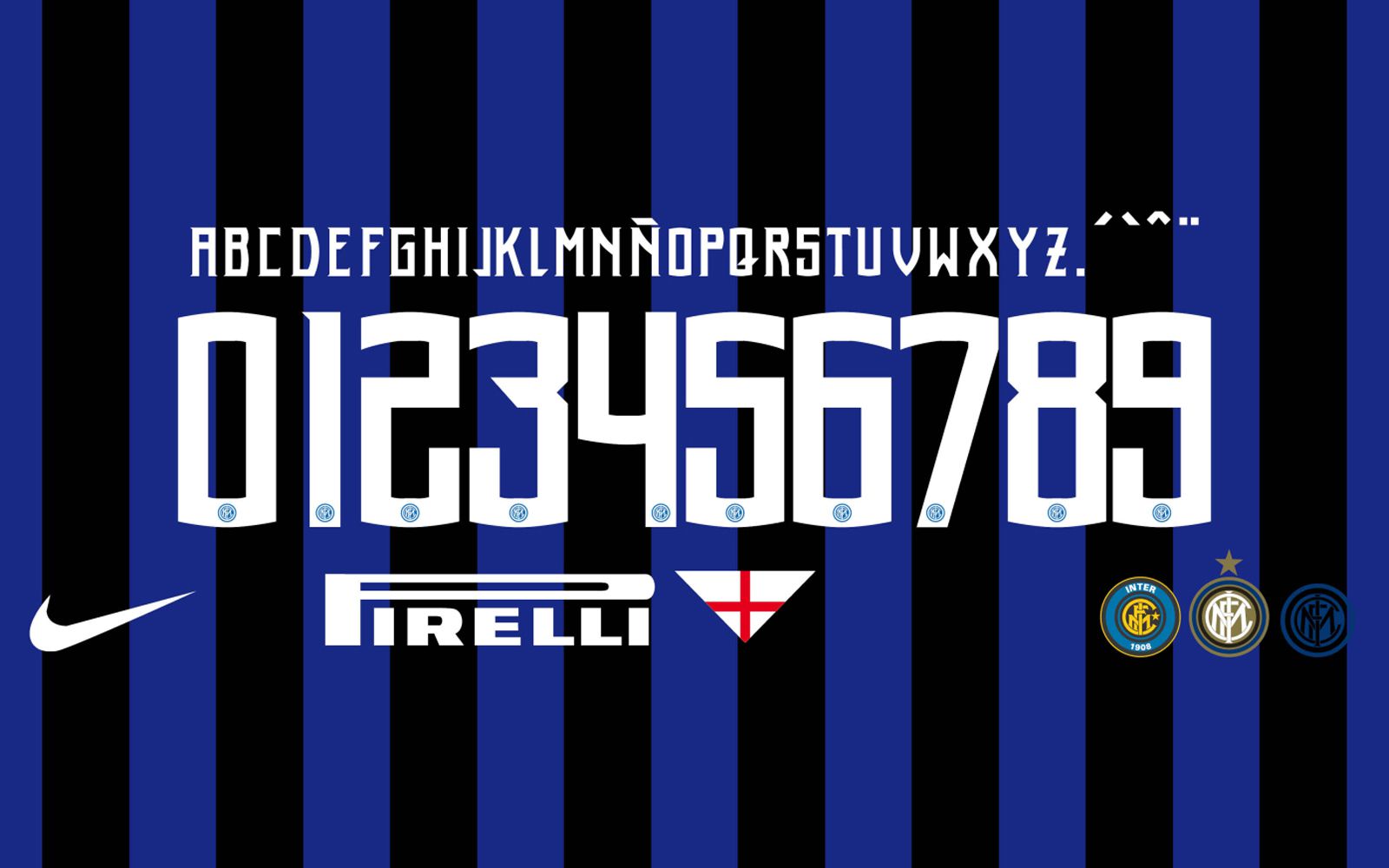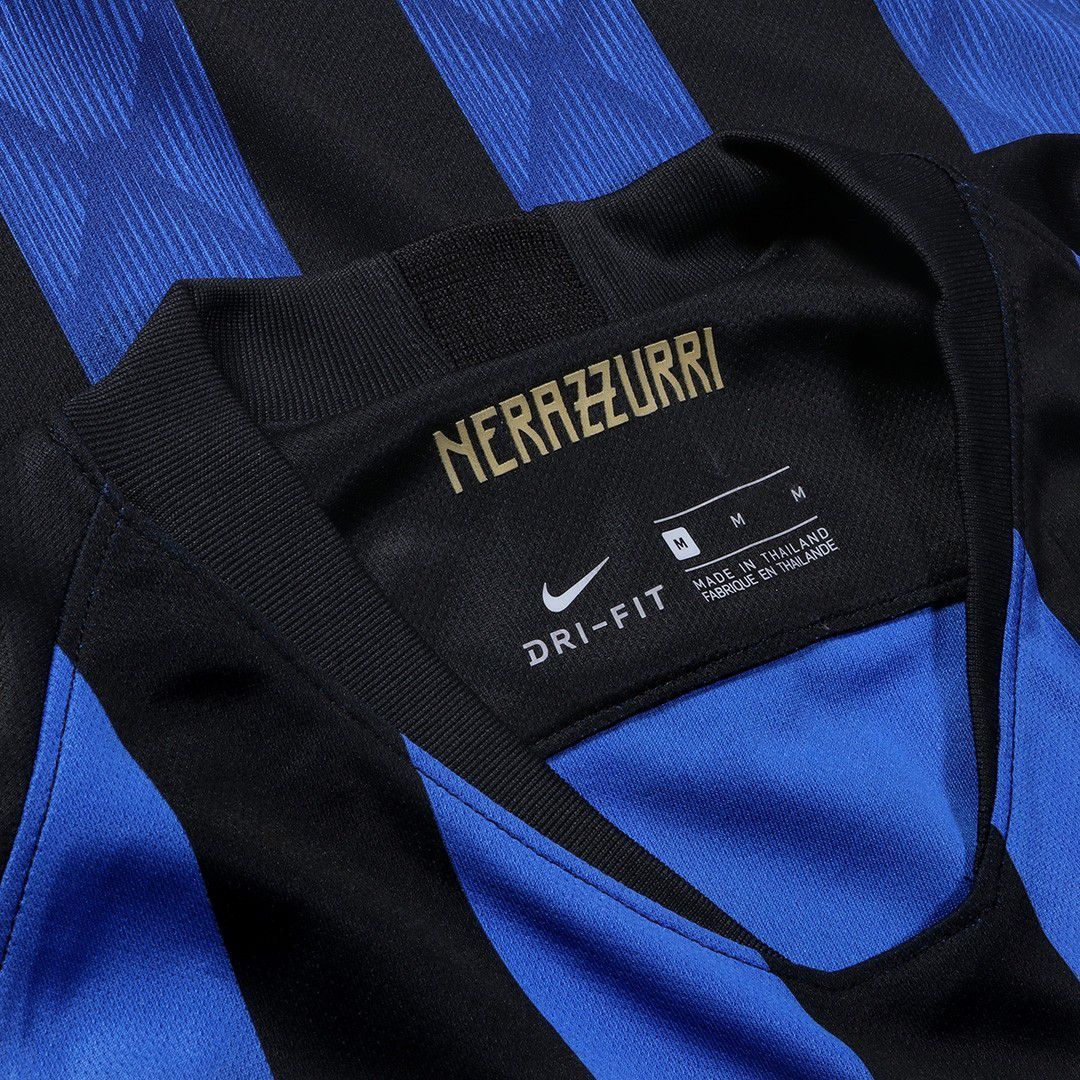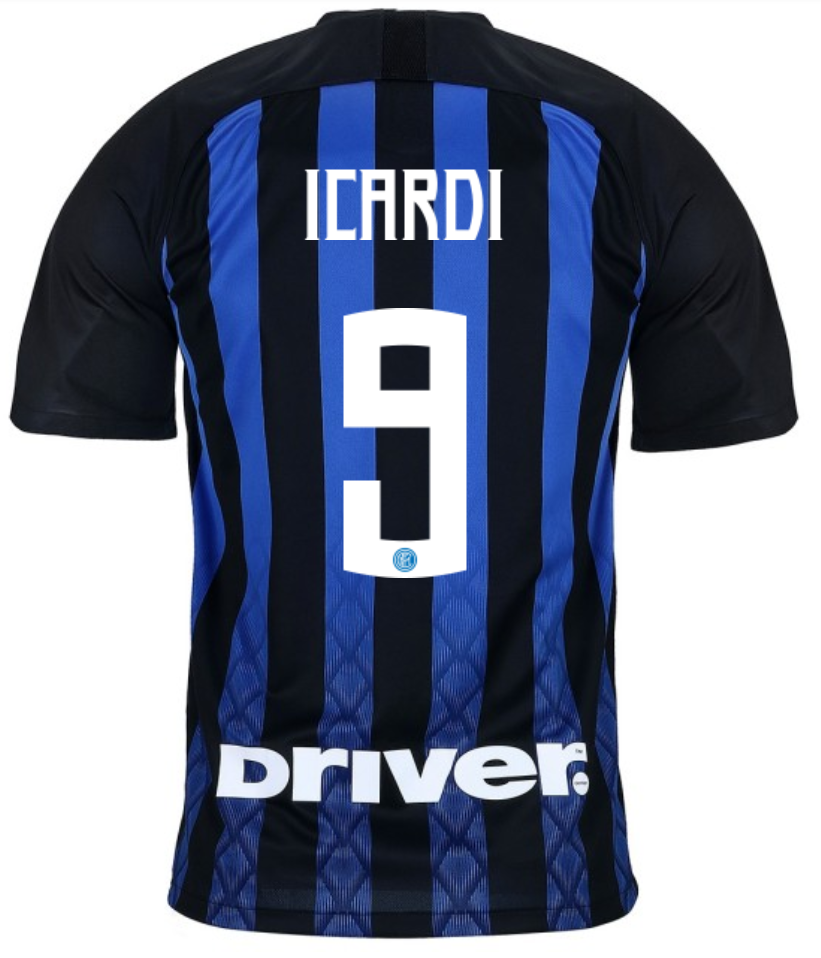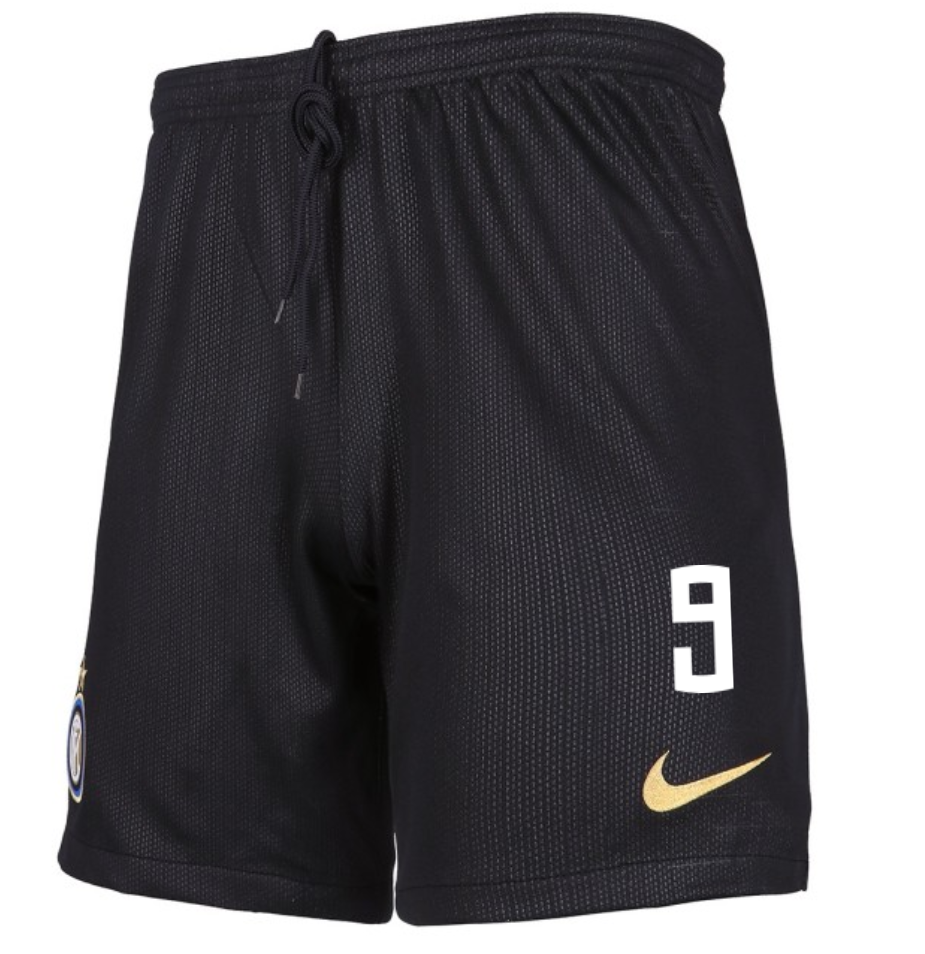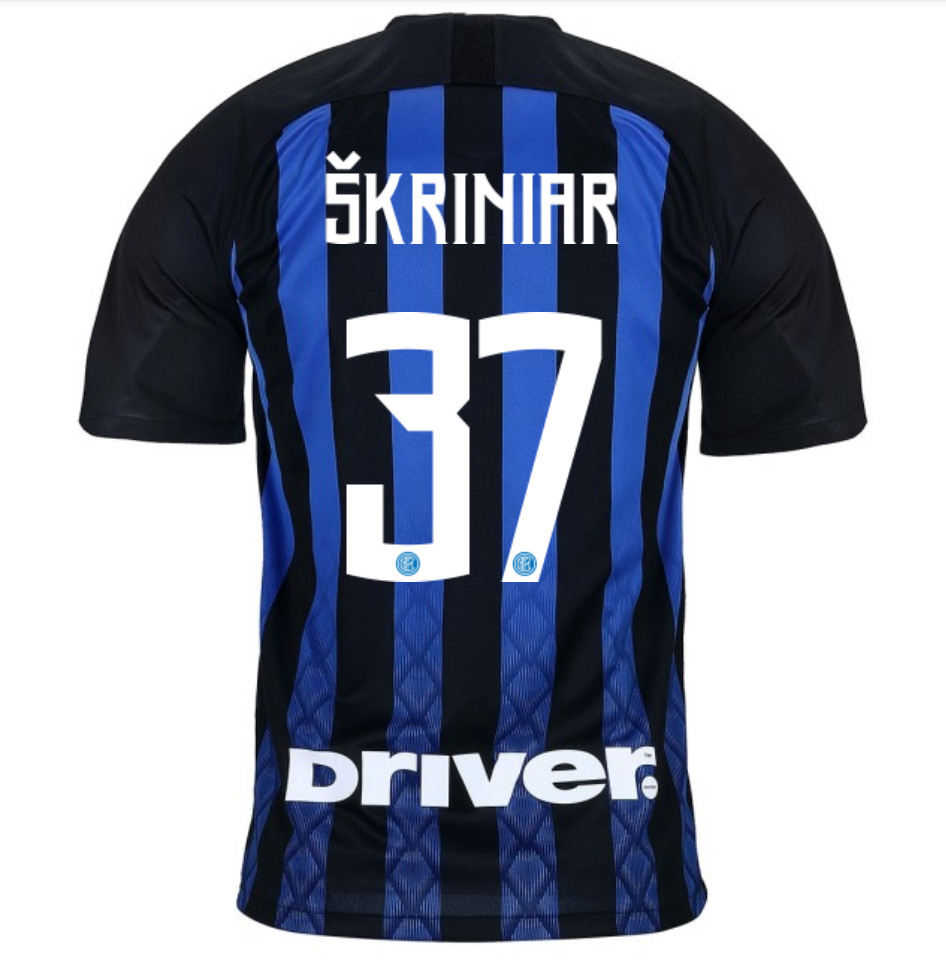
FC Inter 2018-19 Font Nike unveiled the new FC Inter font
It's been a great week to be an FC Inter fan: after winning the spot for the next Champions League and having released the new 2018-19 shirt, Nike and FC Inter have unveiled the new font that will be used on the Nerazzurri's shirts next season.
The font for the game kit will be the same that Nike has used in the graphics presentation: it is very aggressive and original, characterized by angles and sharp edges. Compared to the last fonts used by Inter it is a great leap forward for both originality and design. For the home FC Inter's 2018-19 kit, Nike chose to draw inspiration from two of the most popular shirts by Inter fans in these twenty years, the home shirt from 1998/99 and the appreciated kit of 2010/11. The new font will be used in all competitions, including the Champions League.